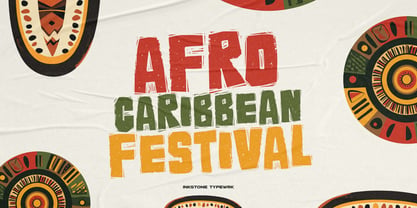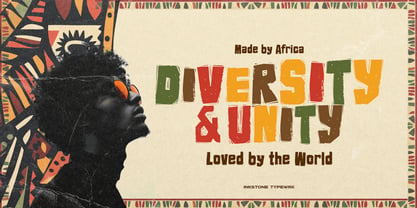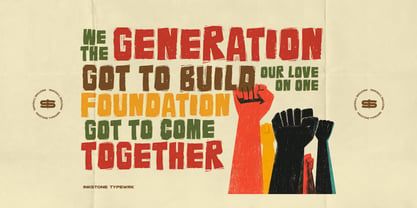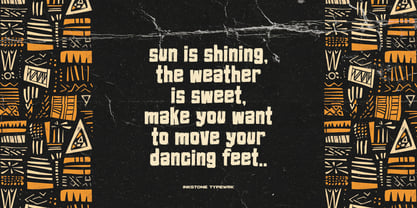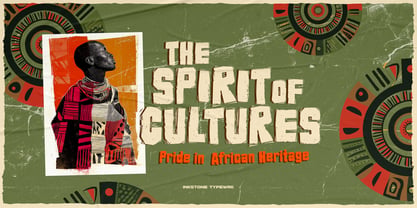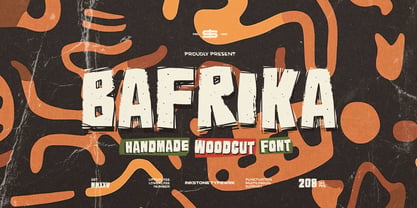
Bafrika
by Inkstone Typewrk
The Bafrika Font Family was designed by Andhika Pradana, Yono Asmadiputra and published by Inkstone Typewrk. Bafrika contains 1 styles. More about this family
Bafrika - Handmade Woodcut Font Raw, organic, and rich with African vibes—Bafrika is a handcrafted woodcut font that embodies the energy of tribal artistry and rugged craftsmanship. Inspired by ancient carvings, indigenous patterns, and bold ethnic design, this typeface brings the essence of African culture, nature, and storytelling into every letter. With its rough, natural textures and bold, Bafrika is perfect for Afrocentric branding, rustic packaging, cultural posters, and handmade product designs. Whether you're crafting an authentic festival logo, an earthy fashion label, or an organic-inspired layout, this font keeps it raw, powerful, and full of heritage.
Designers: Andhika Pradana, Yono Asmadiputra
Foundry: Inkstone Typewrk
Inkstone Typewrk is a bold and visionary type foundry based in Surabaya, Indonesia. Established in 2025, we are multidisciplinary designers driven by fearless ideas and stylish execution. We craft letterforms with attitude—sculpting typefaces that carry a rebellious edge. We don’t just design fonts—we shape type.Founded by Yono Asmadiputra and Andhika Pradana, a dynamic duo united by their love for expressive typography, Inkstone Typewrk is built on passion, collaboration, and a shared obsession for detail. Their synergy fuels a creative playground where bold ideas meet refined craftsmanship.